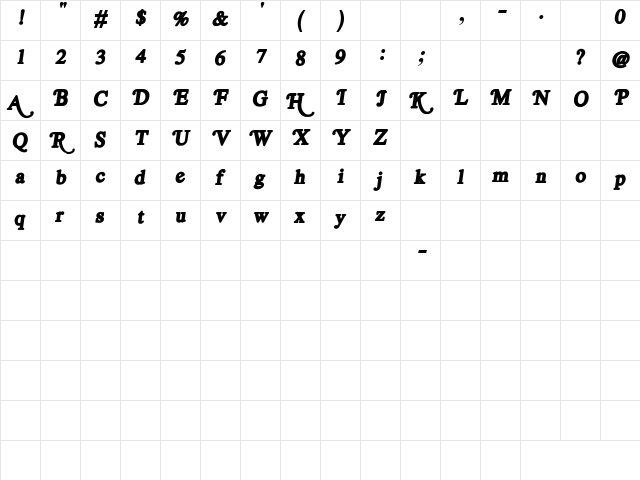
Rolling Rocker Regular
Design Context for Rolling Rocker Typeface
Rolling Rocker offers clean, dependable letterforms without strong stylistic allegiance, making it a practical choice for designers who need flexibility.
Pro Tip: Use Rolling Rocker in both headline and body roles to test its range before committing to a single application.